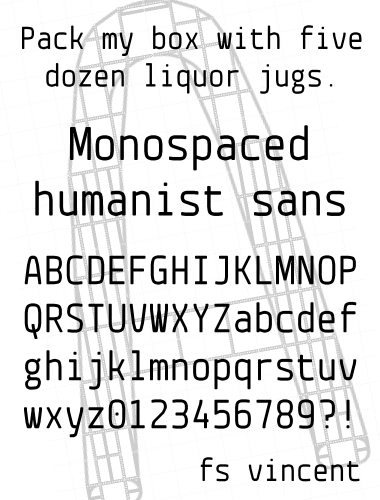
Amazing manipulation of shapes at a relatively low grid scale. 10/10 +fave
Congratulations! FontStruct Staff have deemed your FontStruction worthy of special mention. “fs vincent” is now a Top Pick.
♡/10
the revenge of the monospaced fonts
So clean, so legible, excellent.
The world needs more handsome monospaced fonts like this ( ´ω`)
Beautifully balanced for a monospace.
BEAUTIFUL! 100/10!
really nice